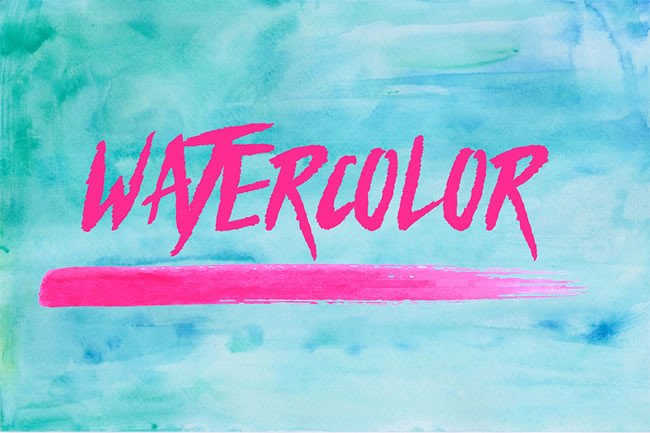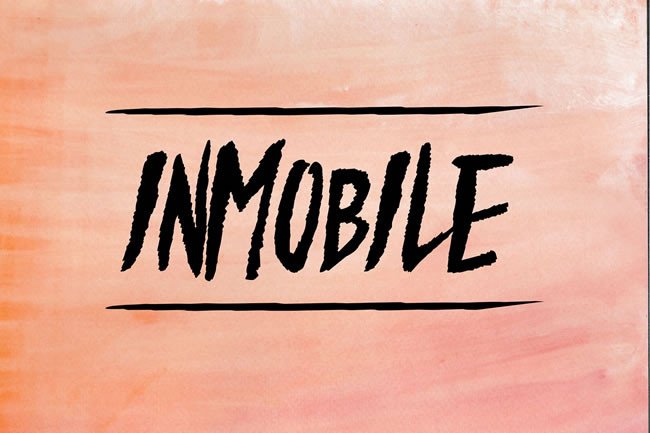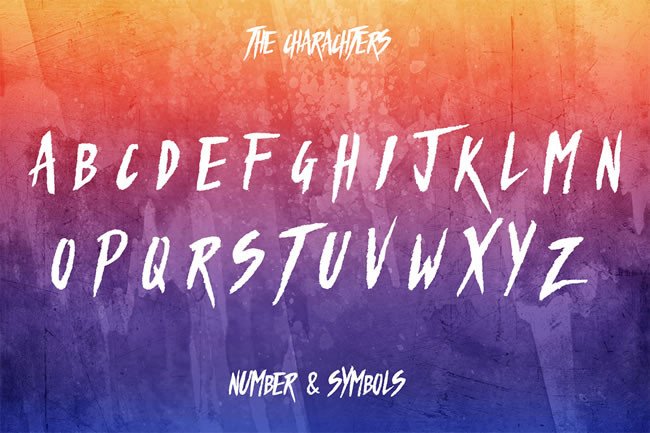
Ramses Font
‘Ramses’ is a handmade & big typeface! Perfect for designing invitations, greeting cards, branding materials, business cards, quotes, posters, and more!